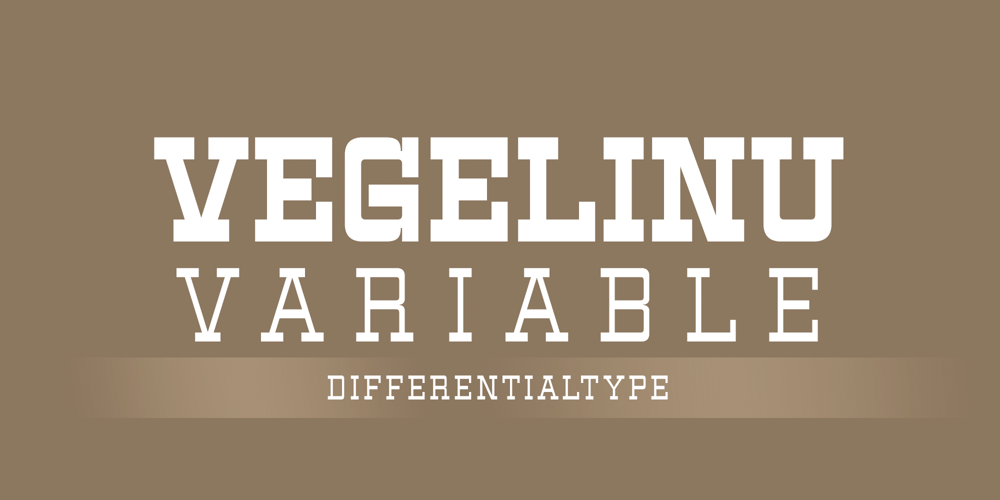
Vegelinu Variable Font Family was designed by Sidik Sidik and published by Differentialtype. Vegelinu Variable contains 1 styles and family package options. Introducing Vegelinu Variable, a multifaceted geometric family look slab that lends vintage charm to any project. It’s a testament to the retro aesthetic of the 70s and 80s, designed to bring a splash of nostalgia into your designs. With Vegelinu, you open a diverse world, significantly enriching your design possibilities. Perfect for logo designs, branding styles, bold headlines, creative work, clear social media posts, and a variety of other applications. Give Vegelinu a try and let your projects stand out with a touch of timeless elegance.